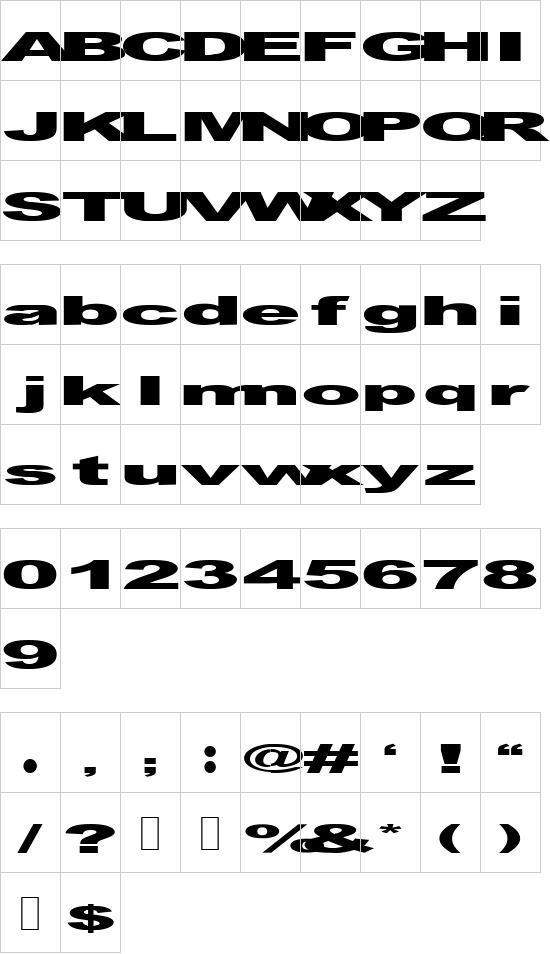
Gf Vienna Heavy is a bold, weighty display font with thick, confident letterforms and a strong vintage flair. The characters carry dense strokes and a touch of old-signage charm, reading as substantial and rich with period character. It feels heavy, warm, and classic.
That character suits classic branding, poster headlines, cafe and bakery signage, and bold album art. It works best in short, big lines. Gf Vienna Heavy is free to download as a TrueType file, and you can preview it with your own words to see how the heavy vintage letterforms read in your design.